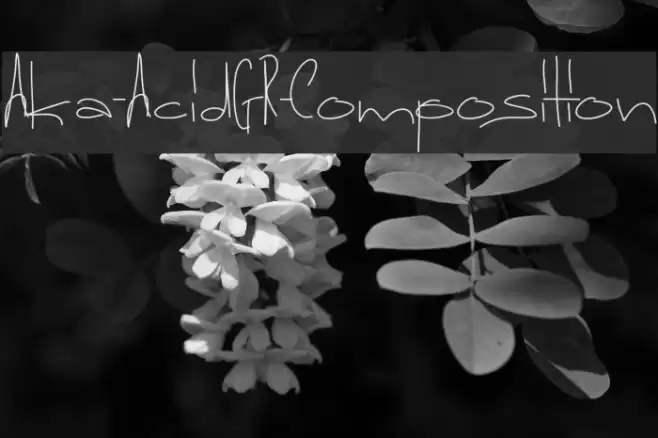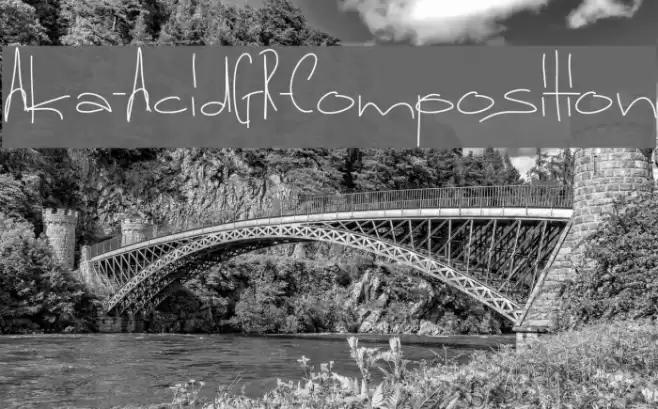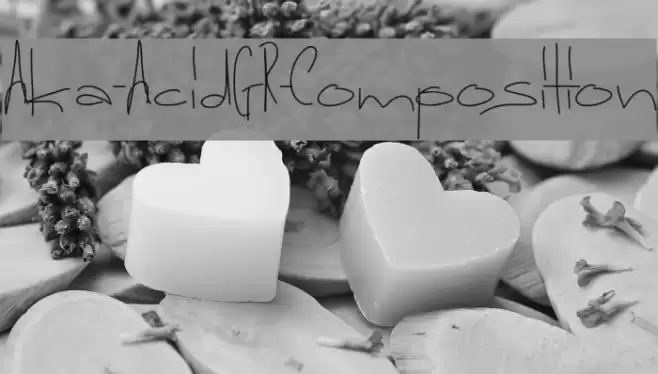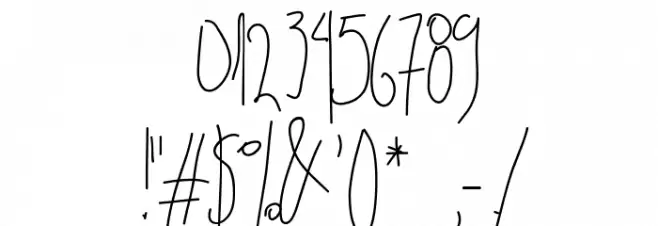
Aka-AcidGR-Composition Font
Aka-AcidGR-Composition Description
This font features a highly distinctive and artistic style, characterized by its elongated and irregular letterforms. The uppercase letters are tall and narrow, with a playful, hand-drawn quality that gives them a whimsical appearance. The lowercase letters maintain this quirky aesthetic, with some characters exhibiting unique loops and curves. The numbers and special characters follow the same design principles, adding to the font's cohesive and creative look. The overall impression is one of spontaneity and artistic flair, making it suitable for projects that require a touch of individuality and creativity.
A whimsical, hand-drawn font with elongated, irregular letterforms from Uncategorized fonts.
- Proposed Projects: Ideal for artistic projects, creative branding, unique invitations, and playful posters.
- Overall Style: Artistic
- Use Case: Logos, Posters, Creative Branding